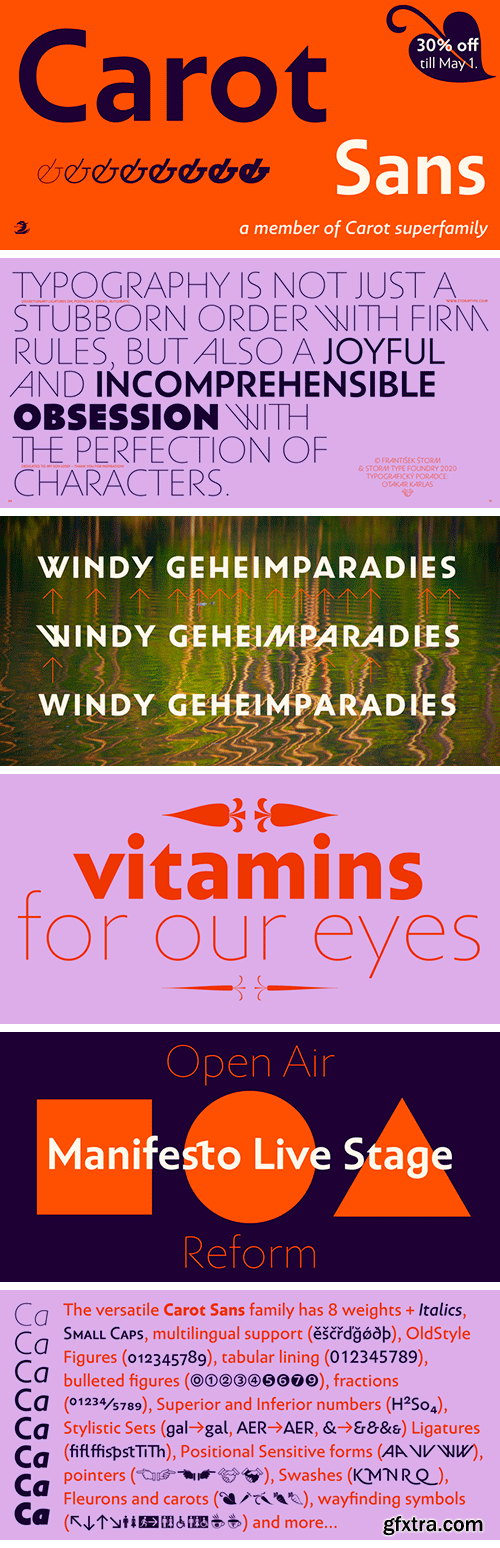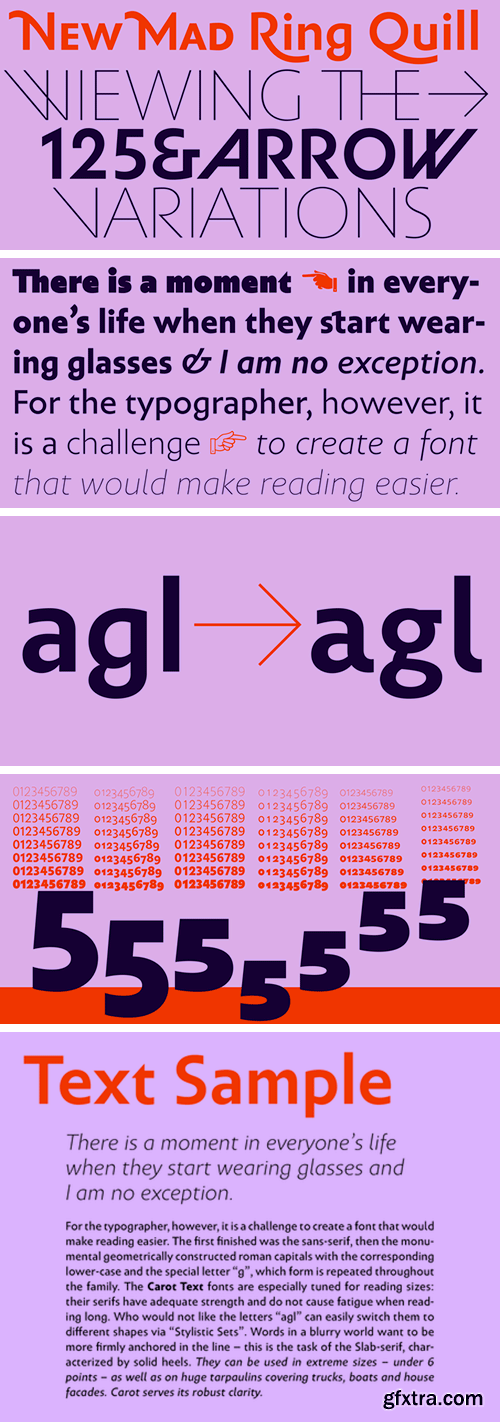
Carot Sans Font Family
There is a moment in everyone’s life when they start wearing glasses and I am no exception. For the typographer, however, it is a challenge to create a font that would make reading easier. The first finished was the sans-serif, then the monumental geometrically constructed roman capitals with the corresponding lower-case and the special letter “g”, which form is repeated throughout the family.
The Carot Text fonts are especially tuned for reading sizes: their serifs have adequate strength and do not cause fatigue when reading long. Who would not like the letters "agl" can easily switch them to different shapes via "Stylistic Sets". Words in a blurry world want to be more firmly anchored in the line - this is the task of the Slab-serif, characterized by solid heels. They can be used in extreme sizes – under 6 points – as well as on huge tarpaulins covering trucks, boats and house facades. Carot serves its robust clarity. The eye takes a while to become accustomed to various character simplifications, but then comes a refreshing reading perception, familiar texts get actual sound. To put it simply, the Carot system is built up from what has long been around; in any case, it was the intention: to evoke the already experienced visual reminiscences of today's spectacled people. We all have a tendency toward sentiment, which, with each new diopter, deepens to melancholy. Only good font can calm us down. I believe in the raw effect of “Carot” typefaces. The family of 64 members offers a modern alternative for all types of design work.